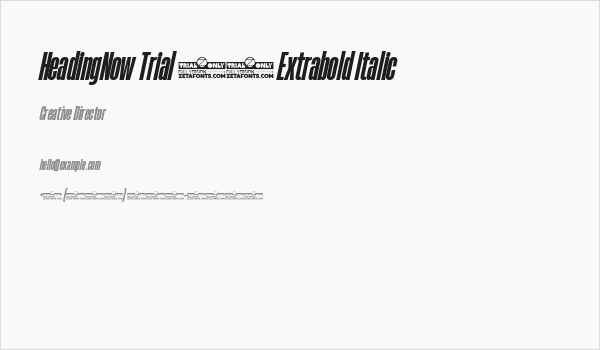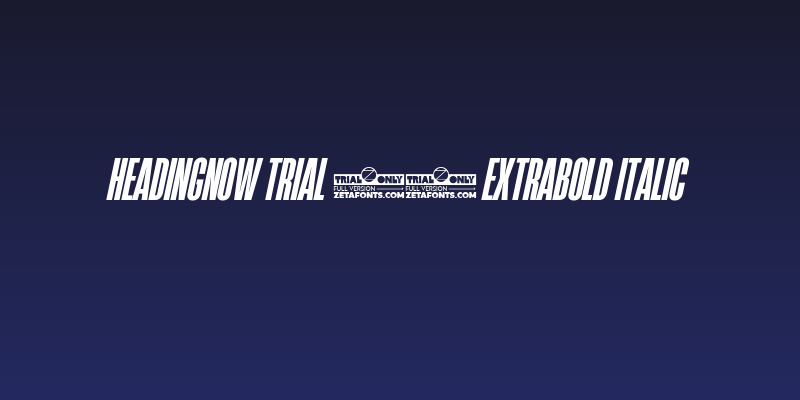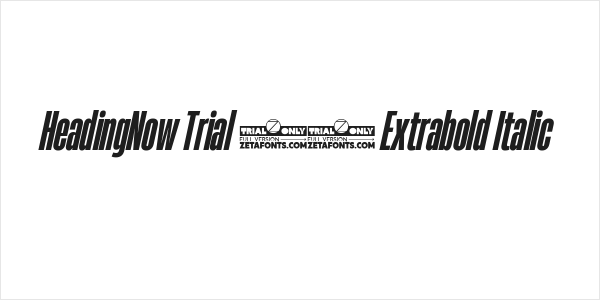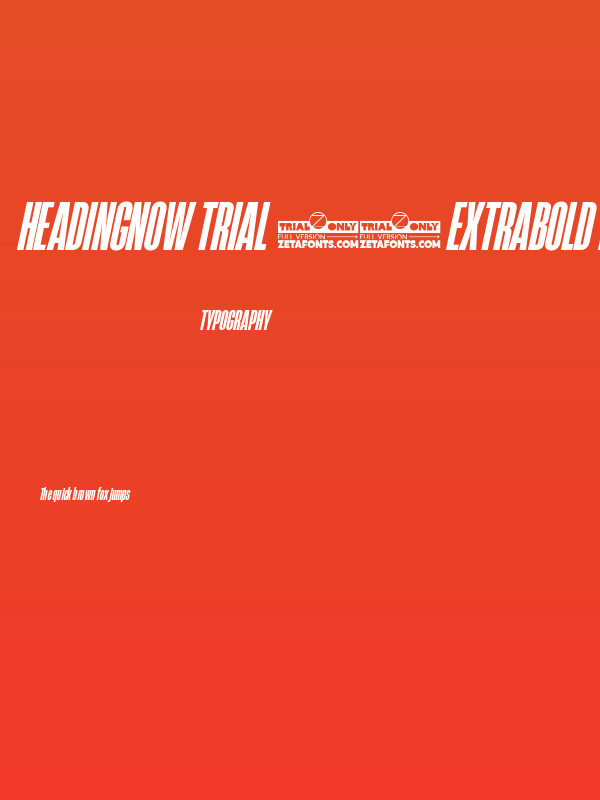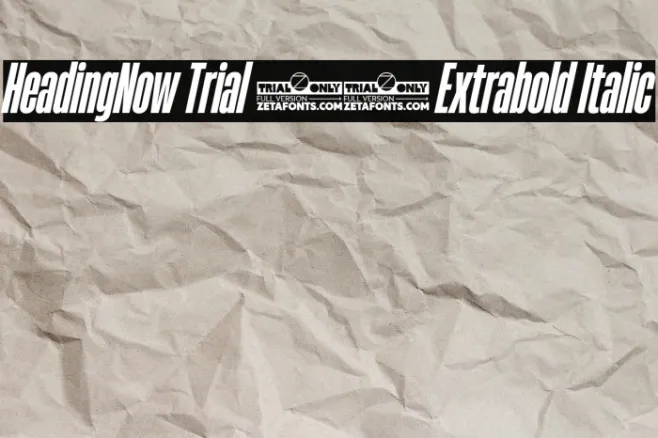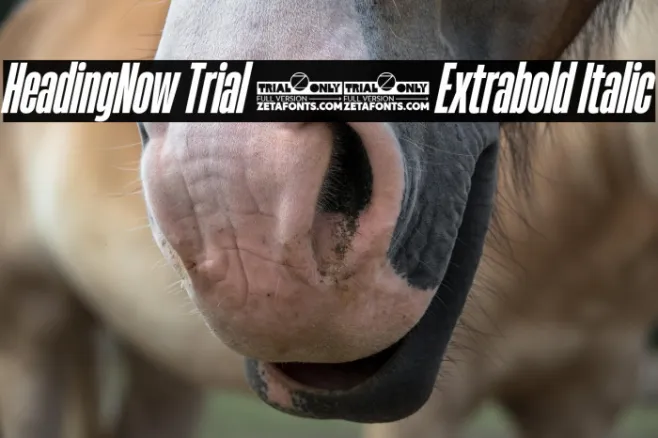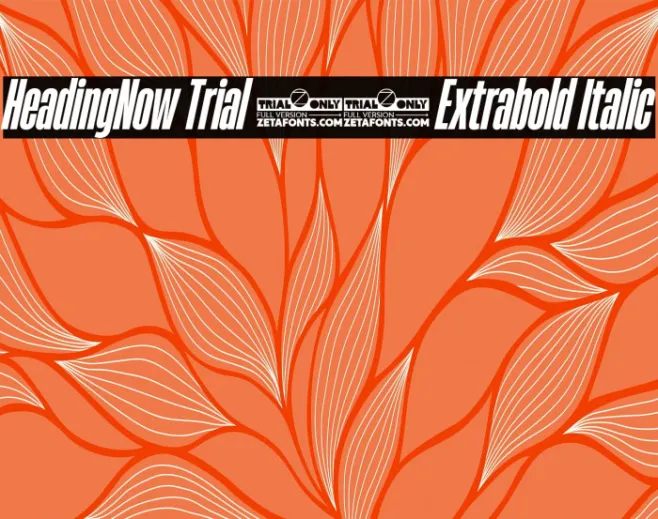
HeadingNow Trial 27 Extrabold Italic Font
HeadingNow Trial 27 Extrabold Italic Description
This font features a bold and dynamic style with an italic slant, giving it a sense of movement and urgency. The characters are extra bold, making them stand out prominently, which is ideal for grabbing attention. The uppercase and lowercase letters maintain a consistent width, contributing to a uniform appearance. The font's design is modern and sleek, with a slightly condensed width that enhances its boldness. The special characters are designed to match the overall style, ensuring a cohesive look across different text elements. The high contrast in stroke thickness adds to its striking appearance, making it suitable for impactful headlines and titles.
| Proposed Projects | Ideal for headlines, advertising, branding, and any project requiring a strong visual impact. |